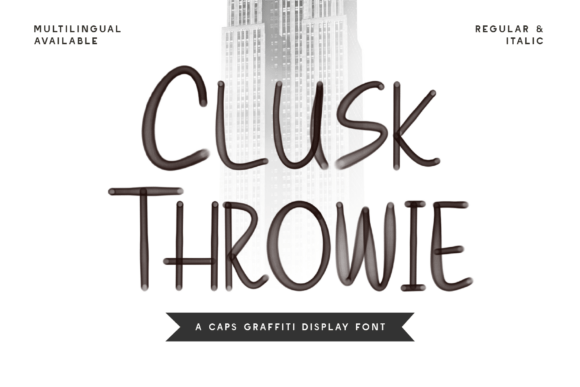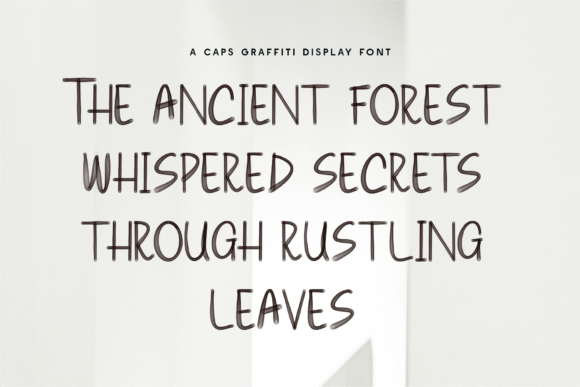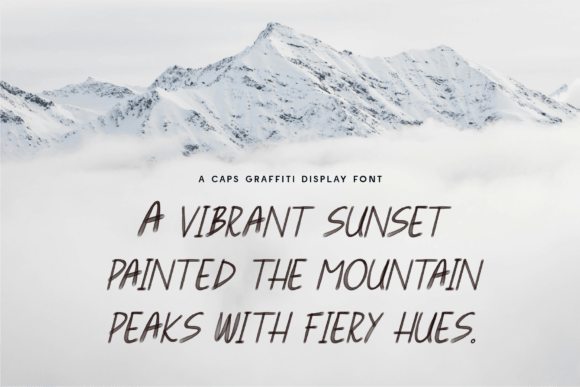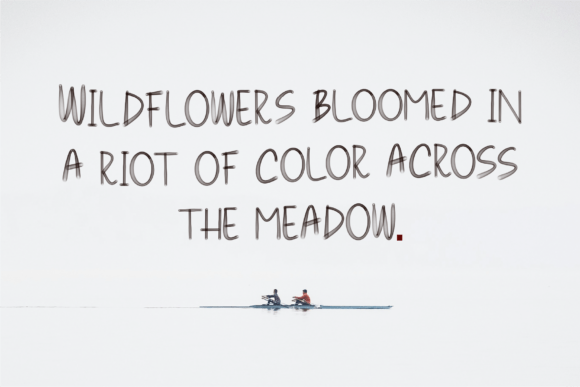
Clusk Throwie Font: Bold Graffiti Display for Edgy Designs! #PosterFont
About the Clusk Throwie Font
The Clusk Throwie Font is here to transform your projects with its distinctive character and style. Introducing **Clusk Throwie**, a caps-only graffiti display font inspired by authentic street art and tag culture. With its spray-painted edges, marker-style strokes, and rebellious attitude, this font delivers an unapologetic dose of urban grit and underground energy.
Whether you’re designing for album covers, apparel, extreme sports branding, posters, urban events, or edgy social content, Clusk Throwie brings an instant hit of graffiti authenticity and raw expression. Available in Regular and Italic styles, it’s built for creatives who want to make a statement.
**Why Choose Clusk Throwie?**
– 🎨 Authentic Graffiti Look: Handwritten marker style with caps for bold impact.
– 🏙 Street Culture Approved: Perfect for skate brands, rap visuals, zines, and rebellion-themed design.
– 🔁 Regular & Italic Included: Flexibility to emphasize movement and style.
– 🌍 Multilingual Support: Includes symbols, punctuation, and wide language coverage.